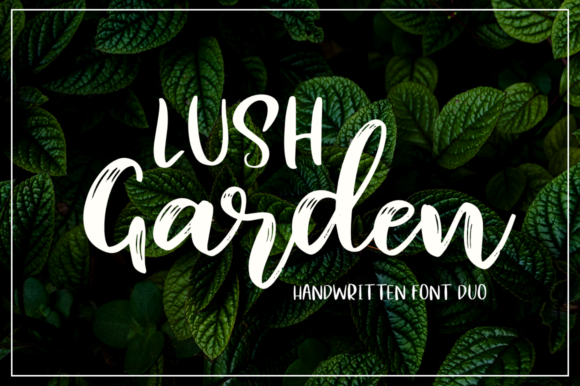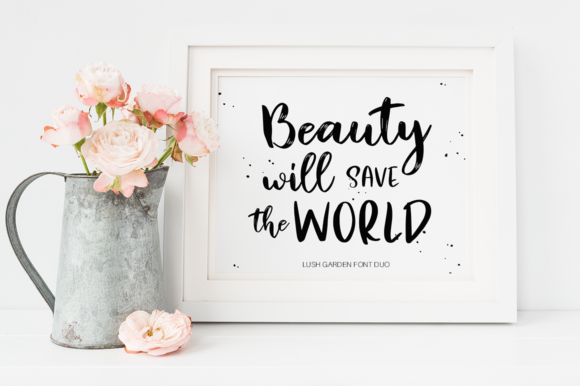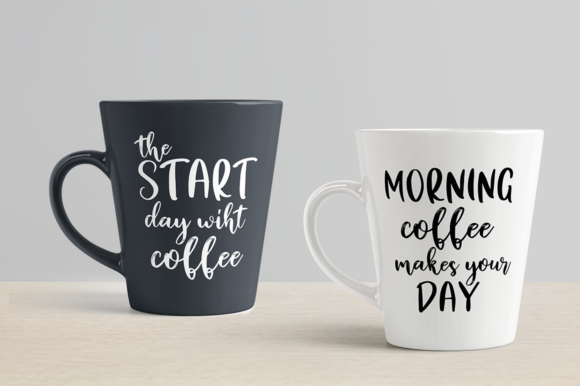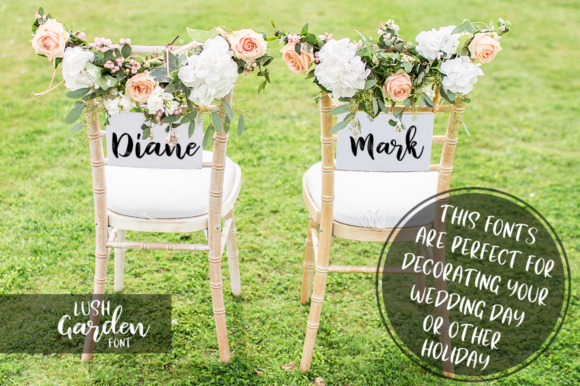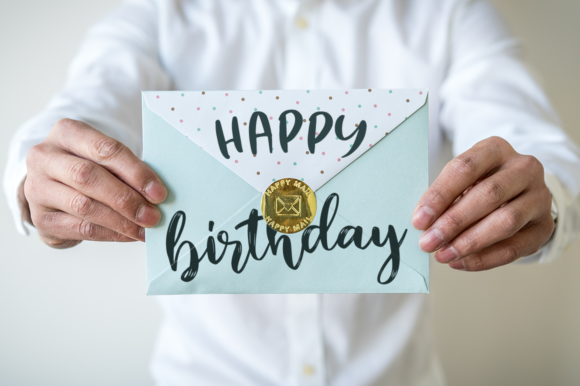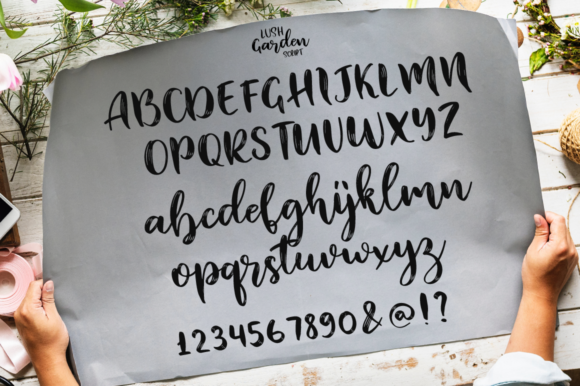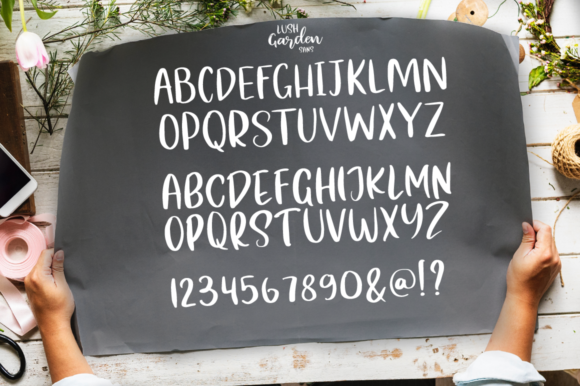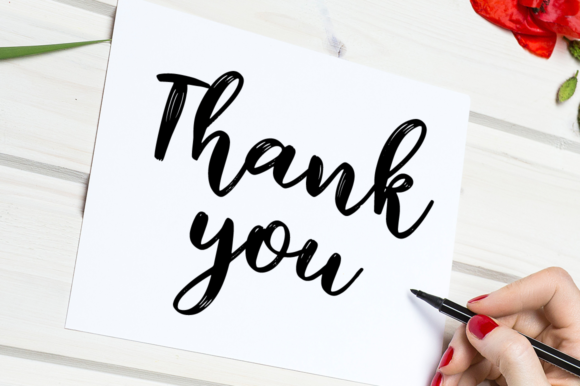
Lush Garden Duo Font
About Lush Garden Duo Font
The Lush Garden is an amazing font duo. Both styles can be combined together perfectly but are also great as strong stand-alone’s.